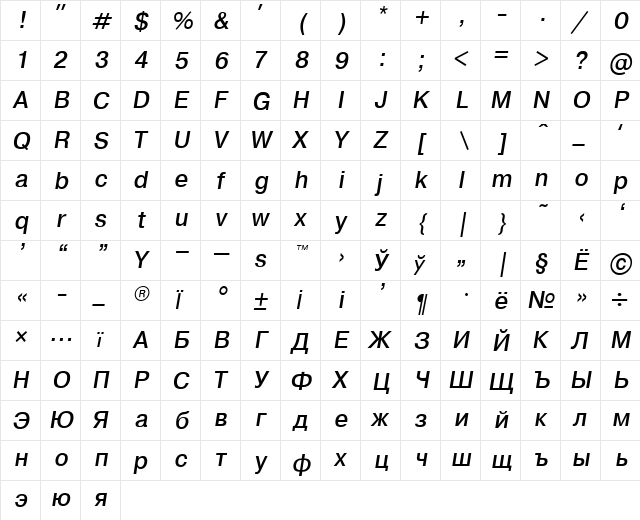
Enciclopaedia Italic
Design Context for Enciclopaedia Typeface
Enciclopaedia takes a measured approach to typography — its balanced proportions and neutral character make it a reliable workhorse for both digital and print work. The dynamic lean of this cut emphasises speed and emphasis in any layout.
Pro Tip: Try Enciclopaedia for annotation and caption copy alongside an upright companion — the contrast in angle creates a dynamic but ordered typographic system.